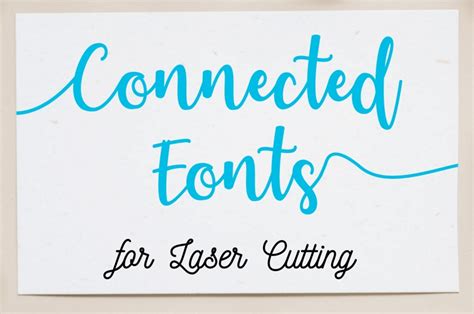
What Are Connected Fonts For Cutting?
As the cutting industry continues to develop and evolve, the use of connected fonts for cutting is becoming more and more popular. Connected fonts for cutting are fonts that are specifically designed for cutting machines. These fonts allow for a more accurate cut, as the letters and other characters are connected. This makes the cutting process much easier and more precise, which is beneficial for any cutting project.
Connected fonts for cutting are distinct from traditional fonts, which are generally designed for display purposes only. Traditional fonts are not designed to be cut, as they don't have the necessary connections that cutting fonts have. This means that traditional fonts may not cut accurately, and in some cases may not cut at all. Connected fonts for cutting are the best option for cutting projects, as they are designed to be cut and will produce a much better result.
How Do Connected Fonts for Cutting Work?
Connected fonts for cutting utilize a series of lines that connect each letter and character. This creates a seamless connection between the letters and makes it easier to cut. Additionally, connected fonts for cutting often have a slightly larger size than traditional fonts, which helps make the cutting process easier. The larger size also makes the letters and characters easier to see and read, which is beneficial for any cutting project.
Connected fonts for cutting are also designed to work with a variety of different cutting machines. This makes them an ideal choice for any cutting project, as they can be used on almost any cutting machine. Additionally, connected fonts for cutting are often more detailed and intricate than traditional fonts, which can lead to more accurate cuts.
Types of Connected Fonts for Cutting
There are a wide variety of connected fonts for cutting available, and they come in a variety of different styles, sizes, and designs. Some of the most popular connected fonts for cutting include script fonts, brush fonts, and even 3D fonts. Each of these types of connected fonts is designed to be used with a specific type of cutting machine, and they all have their own unique characteristics.
Script fonts are a popular choice for cutting projects, as they are designed to work with a variety of different cutting machines. Script fonts feature a more elegant design, and they are often thicker than traditional fonts. Brush fonts are similar to script fonts, but they feature a more fluid and flowing design. Finally, 3D fonts are designed to be used with 3D cutting machines, and they feature a unique and intricate design that can produce highly accurate cuts.
Benefits of Using Connected Fonts for Cutting
There are a number of benefits to using connected fonts for cutting. As mentioned, connected fonts for cutting are designed to be used with a variety of different cutting machines, which makes them an ideal choice for any cutting project. Additionally, connected fonts for cutting are often more detailed and intricate than traditional fonts, which can lead to more accurate cuts. Finally, connected fonts for cutting are often larger than traditional fonts, which makes them easier to see and read while cutting.
Overall, connected fonts for cutting are a great choice for any cutting project. They are designed to be used with a variety of different cutting machines, and they have a number of unique features that make them the ideal choice for any cutting task. If you're looking for a font that is designed for cutting, then connected fonts for cutting are the perfect choice.